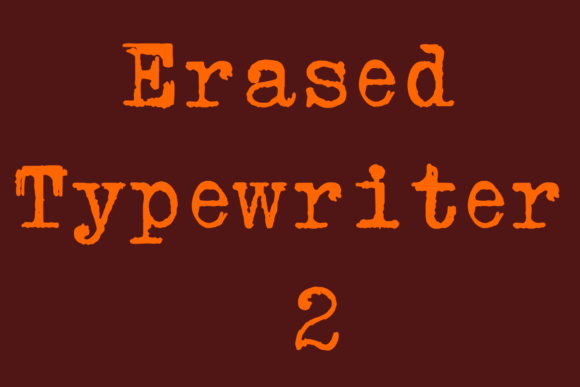
Introducing Erased Typewriter 2 Font, the ultimate choice for those seeking the best font for classic typing. This captivating serif font, created by Intellecta Design, is specifically designed to mimic the distressed and sloppy ink effect of older typewriter machines. With its unique appearance, Erased Typewriter is the perfect choice for a wide range of applications, from branding and logos to candy and food packages.
Get ready to elevate your designs with the charm and nostalgia of Erased Typewriter. This font effortlessly captures the essence of classic typing, bringing a touch of vintage elegance to any project. Its distressed and imperfect letterforms add character and authenticity, making it a truly eye-catching choice.
Searching for a font that stands out from the crowd? Look no further. Erased Typewriter is not your average typewriter font - it's a bold and bright typeface that grabs attention and leaves a lasting impression. Its playful and fun nature adds a touch of joy to every design, making it perfect for projects that require a hint of whimsy.
But Erased Typewriter is not just about aesthetics; it's also highly versatile and functional. Its clean and legible letterforms ensure readability across various mediums, making it suitable for both print and digital applications. Whether you're designing a logo, creating packaging, or even crafting a vintage-inspired website, this font will exceed your expectations.
With Erased Typewriter, your designs will evoke emotions and transport your audience to a bygone era. Imagine the nostalgia and sentimentality it can bring to your branding, taking your customers on a journey back in time. This font has the power to create an emotional connection with your audience, making it a valuable asset for any marketing campaign.